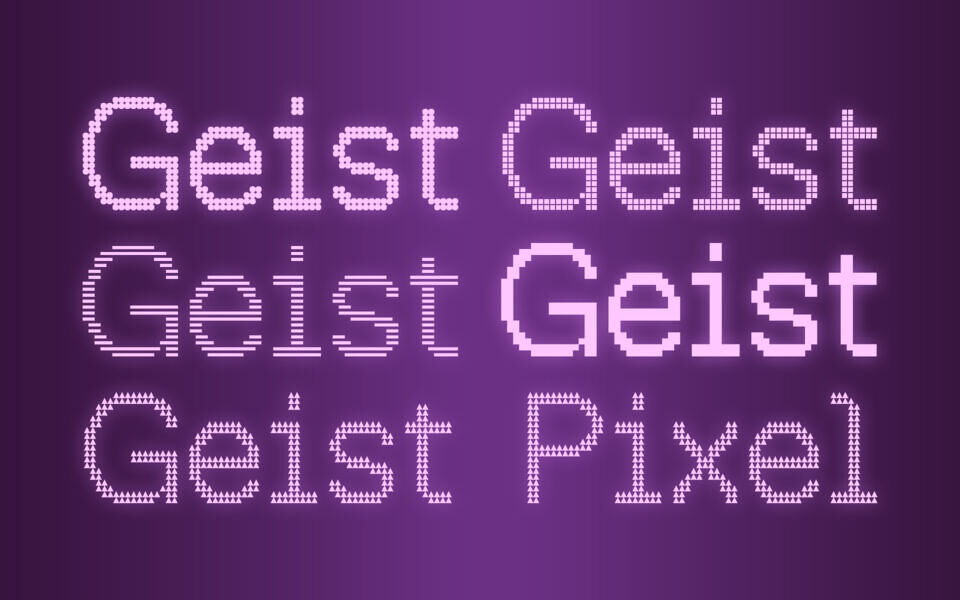
Geist Pixel is a creative, open-source font family by Vercel, released under the SIL Open Font License. Reimagining the modernist Geist aesthetic, it features five distinct geometric styles: Circle, Square, Grid, Line, and Triangle.
Each variant uses unique primitives to construct glyphs, from horizontal scanlines to tiny triangles. Offering extensive character support and precise legibility, Geist Pixel is ideal for technical interfaces, retro-inspired branding, and digital designs requiring a systematic, modernist look.